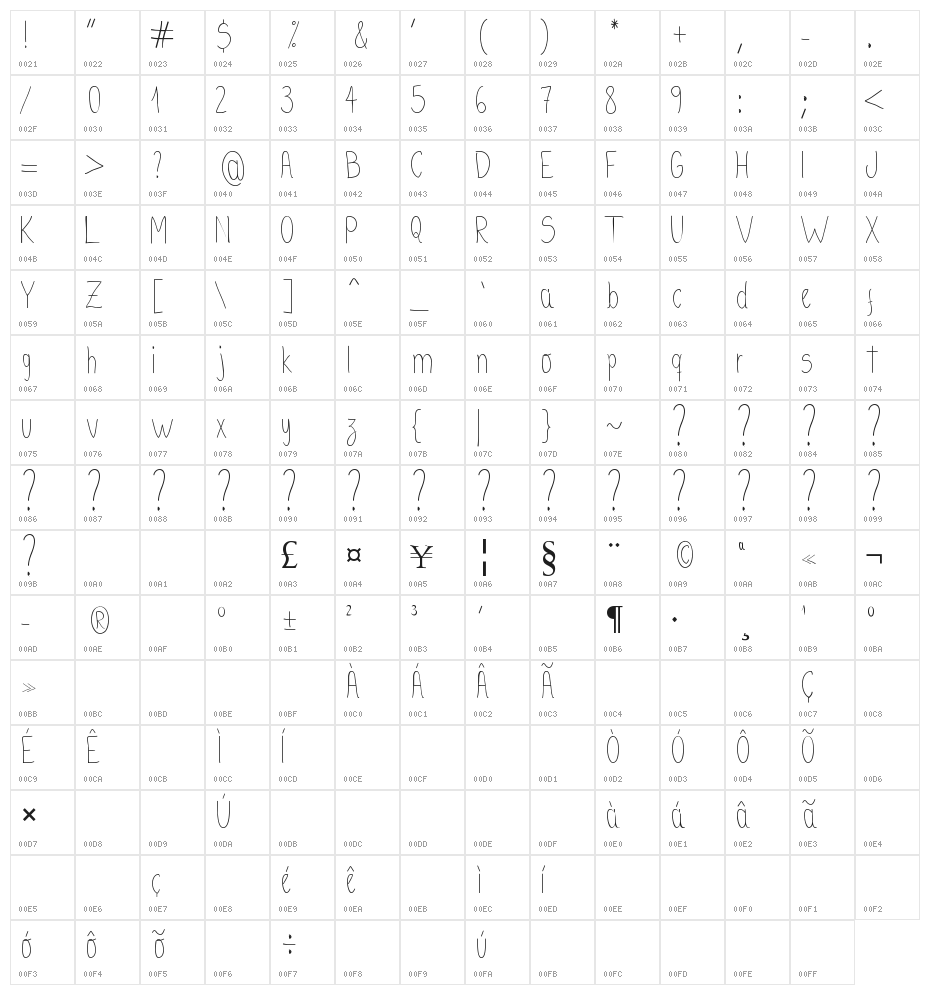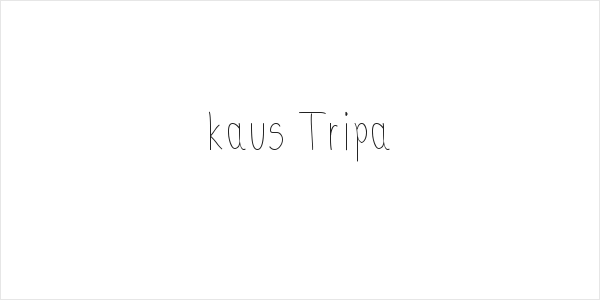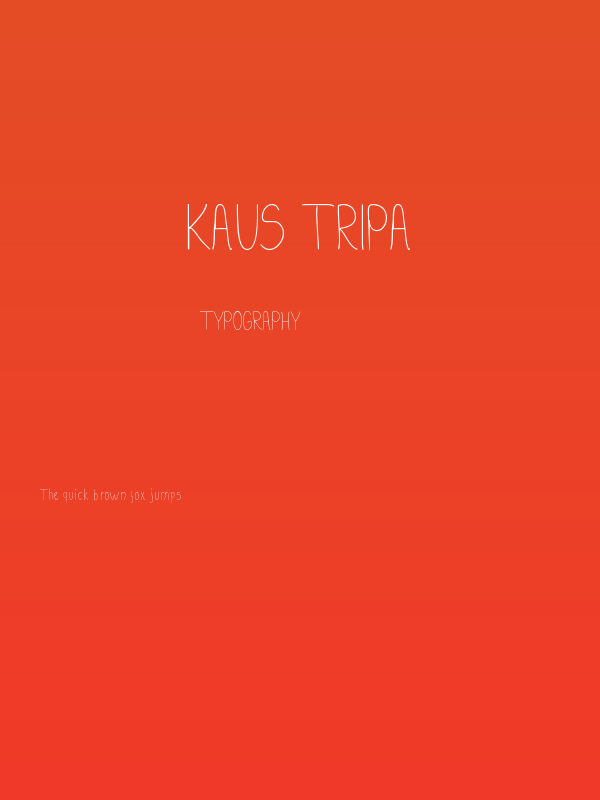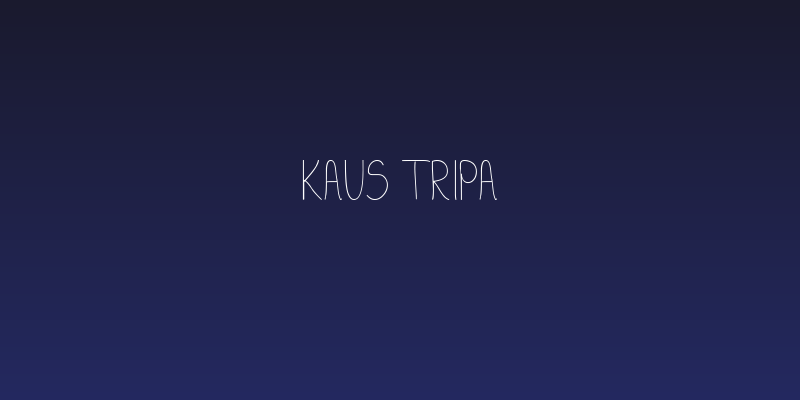
kaus Tripa Font
kaus Tripa Description
This font features a playful and whimsical handwritten style, characterized by its thin, elongated letterforms and slightly irregular strokes. The uppercase letters maintain a consistent height, while the lowercase letters exhibit a charming, casual flow. Numbers and special characters follow the same playful aesthetic, making the font suitable for creative and informal applications. The overall appearance is light and airy, with a touch of personality that adds a unique flair to any design.
KAUS-TRIPA UPPERCASE
KAUS-TRIPA LOWERCASE
KAUS-TRIPA OTHER CHARS
| Overall Style | Whimsical |
| Proposed Projects | Ideal for children's books, greeting cards, playful branding, and creative invitations. |